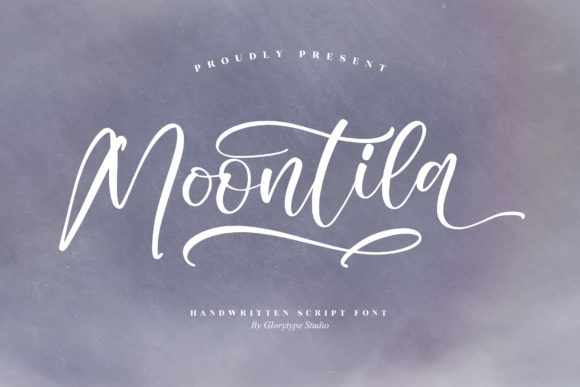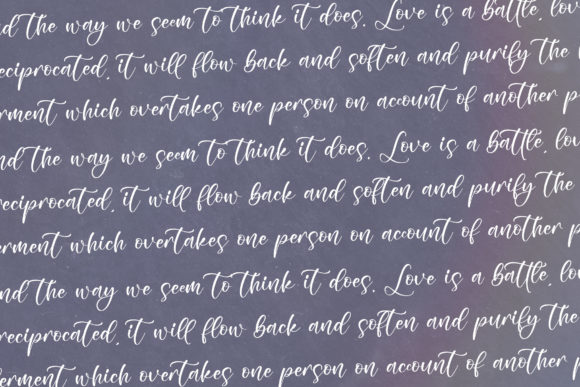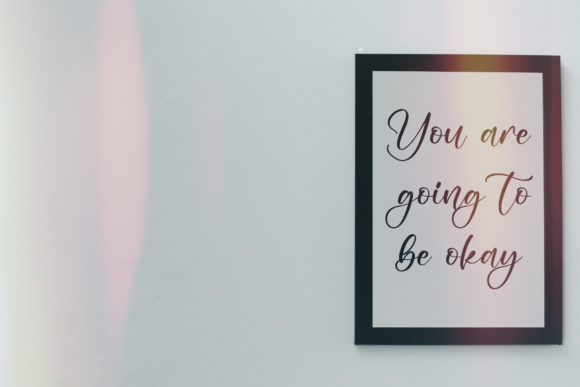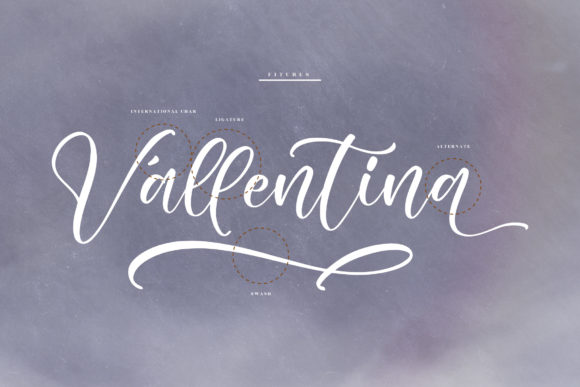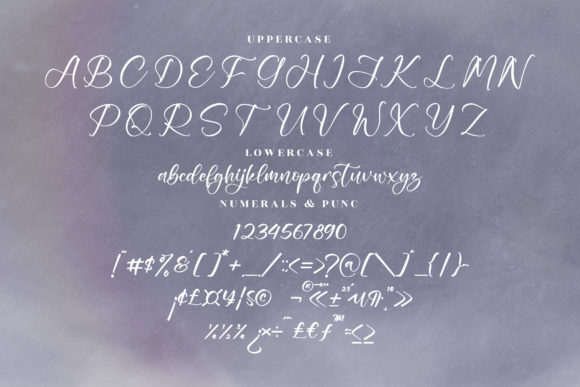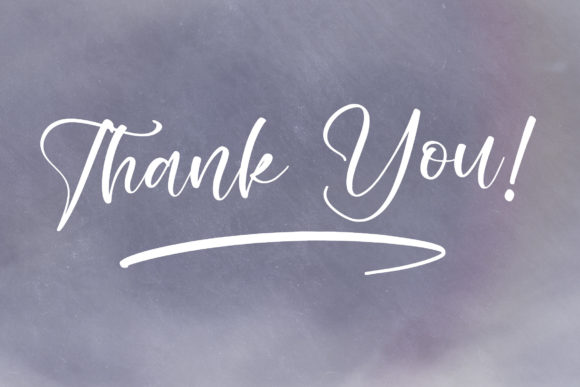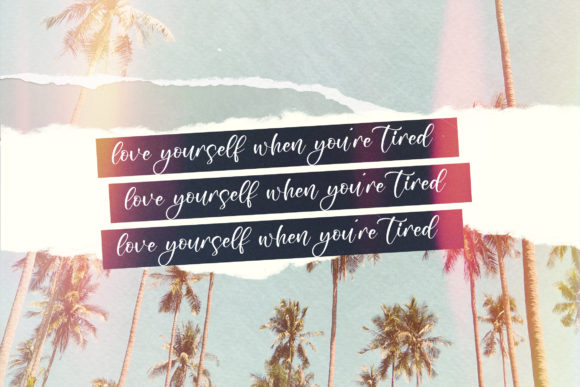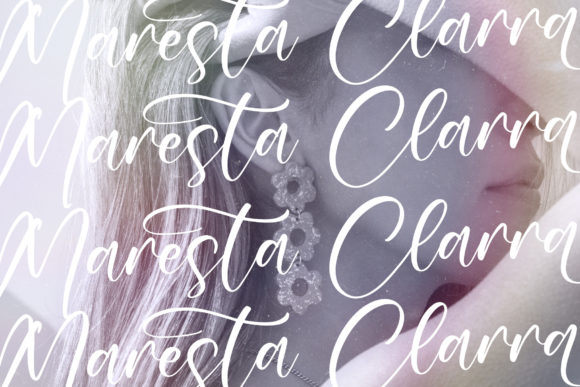
Moontila Font
About Moontila Font
Moontila is a beautiful script font, suitable for any projects such as: logos, branding projects, homeware designs, product packaging, mugs, quotes, posters and all of your lovely projects that need a beautiful script taste. This font is PUA encoded which means you can access all of the glyphs and swashes with ease!